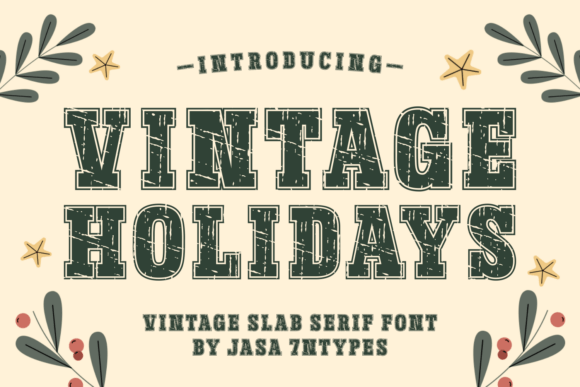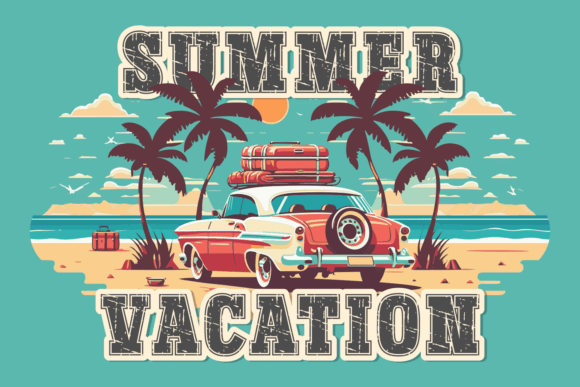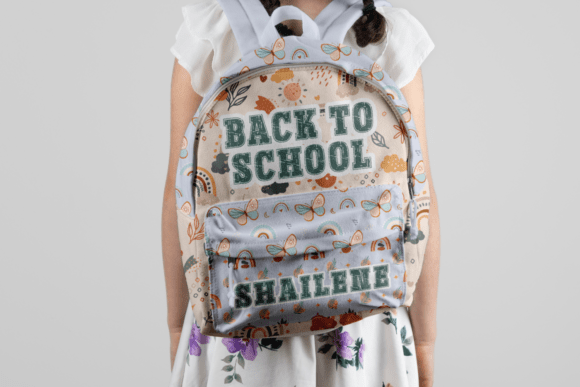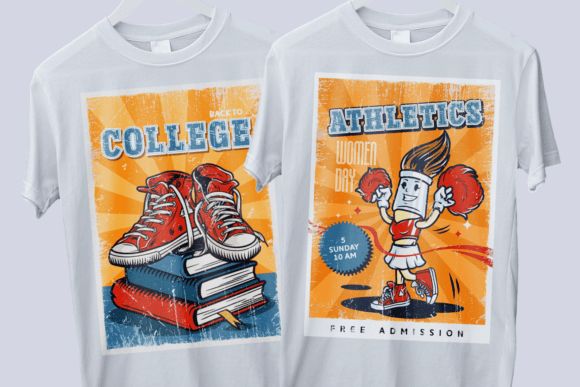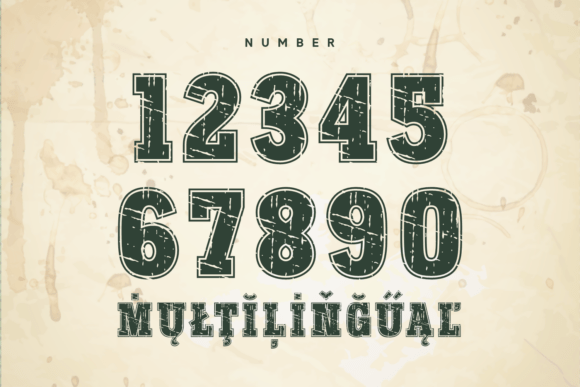
Vintage Holidays Font
Vintage Holidays is a bold slab serif font with a charming distressed texture that captures nostalgic holiday spirit. Perfect for retro Christmas cards, festive branding, signage, posters, or any project that needs a touch of rustic warmth. Its strong letterforms and classic Western-style edges make it ideal for vintage-inspired designs with a cozy, handcrafted feel.